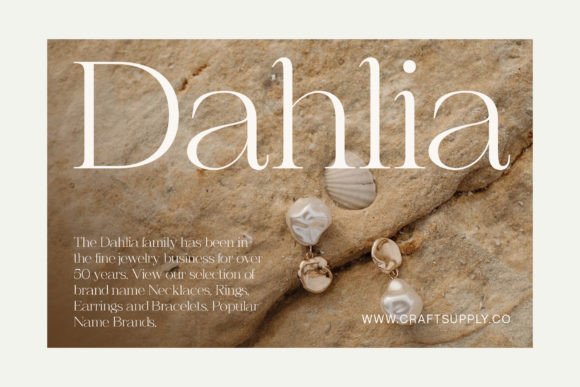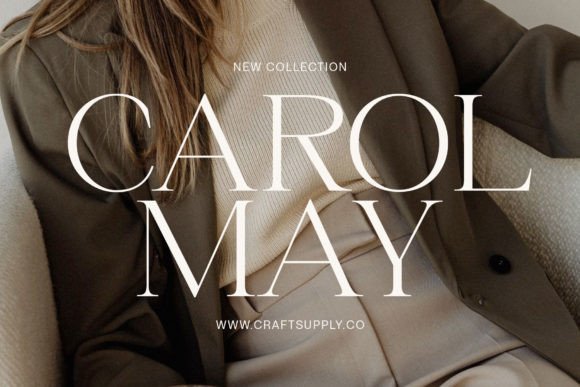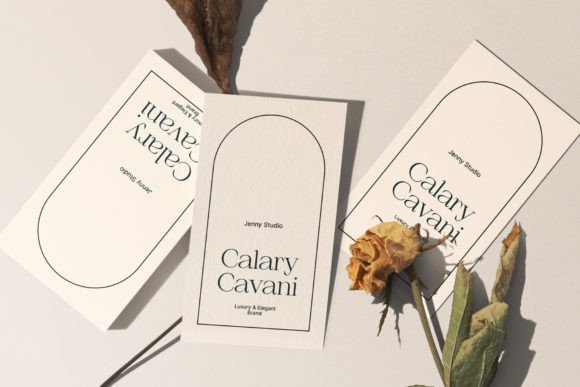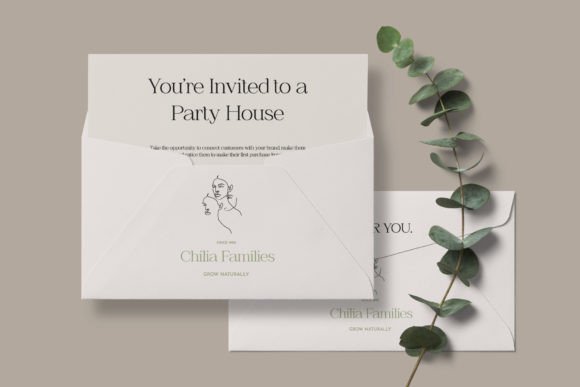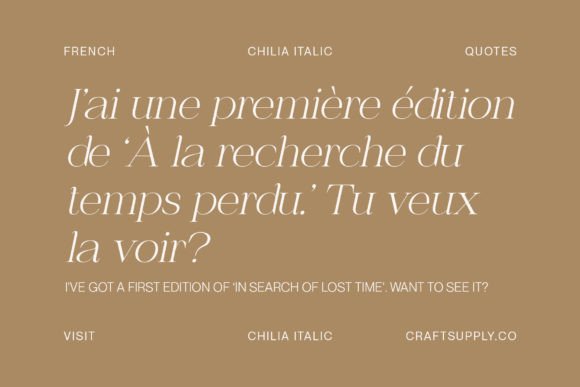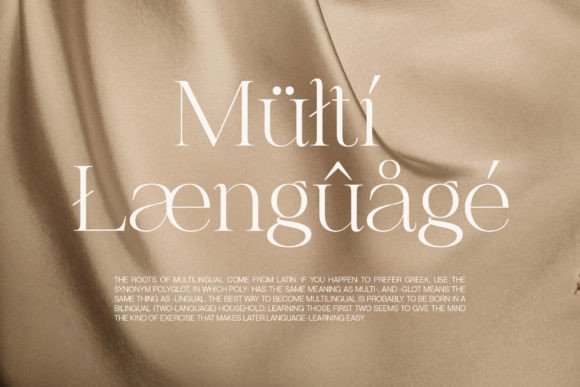
I still remember the countless hours I spent scrolling through font libraries, searching for the perfect typeface for a client’s branding project. The brief was simple: elegant, sophisticated, and eye-catching. Sound familiar? As designers, crafters, and creative hobbyists, we’ve all been there. That’s when I stumbled upon Chilia Font, a stylish serif font that has since become a staple in my design toolkit.
First Impressions: A Love Affair with Chilia
Chilia is a stunning serif font that effortlessly blends modern and elegant features. Its unique upper serifs and feminine allure make it perfect for beauty and display purposes. Here are a few things I love about Chilia:
- ✨ Contemporary upper serifs that add a touch of sophistication
- ✅ Feminine allure that exudes elegance and poise
- 💃 Eye-catching presence that’s perfect for captivating displays
- 📚 Versatile and suitable for a wide range of design projects
The Honest Review: Not Perfect, But…
No font is perfect, and Chilia has its quirks. Here are a few things to keep in mind:
- 🤔 Limited use in body text: Chilia is best suited for display purposes, and may not be the best choice for lengthy paragraphs.
- ⚠️ Some glyphs may require manual adjustment: Depending on the design, you may need to tweak certain glyphs to achieve the desired look.
Chilia was designed with the intention of creating a font that exudes elegance and sophistication. The designer aimed to craft a typeface that would be perfect for beauty and display purposes, while also being versatile enough for a wide range of design projects. Although the designer’s true inspiration and creative process remain a mystery, it’s clear that Chilia was designed to make a statement.
| Font Name | Chilia Font |
| Author | craftsupplyco |
| What is Chilia Font best suited for? | Chilia Font is ideal for beauty and display purposes, such as logos, branding, and advertising. |
| Can I use Chilia Font for body text? | While Chilia Font can be used for body text, it’s best suited for display purposes. For longer paragraphs, consider using a more traditional serif font. |
| Is Chilia Font suitable for digital use? | Yes, Chilia Font is optimized for digital use and can be used on a variety of platforms, including websites, social media, and digital advertising. |